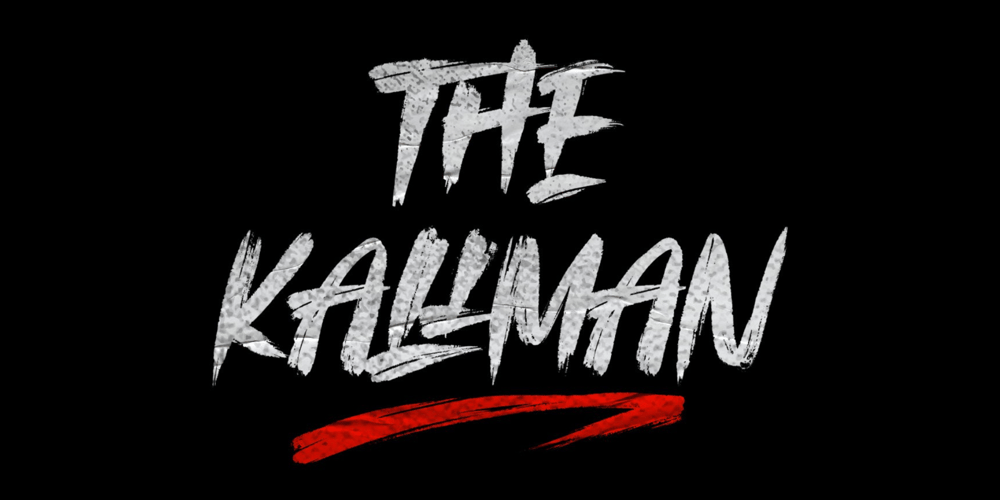
The Kallman Font Family was designed by Irpan Maulana and published by Sabrcreative. The Kallman contains 1 styles and family package options. Introducing The Kallman Font, a captivating display brush typeface that effortlessly commands attention. With its bold and dynamic strokes, this font adds a striking impact to your design projects. Perfect for eye-catching headlines, posters, logos, and more, The Kallman Font infuses your creations with a powerful and contemporary vibe.